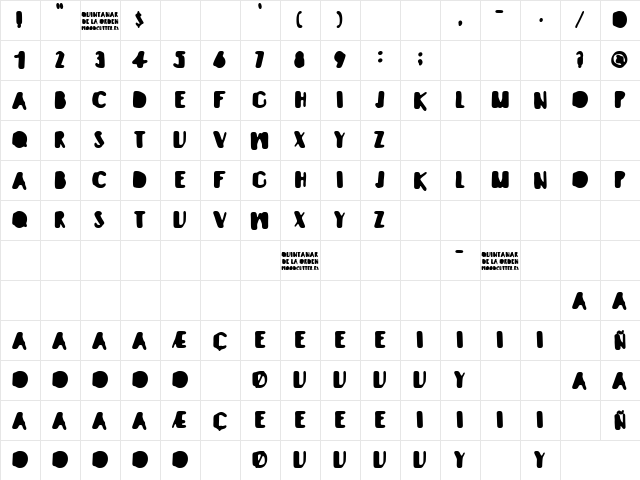
Quintanar de la Orden Regular
Design Context for Quintanar de la Orden Typeface
Quintanar de la Orden is a composed and adaptable typeface that performs quietly and consistently across a wide range of design contexts.